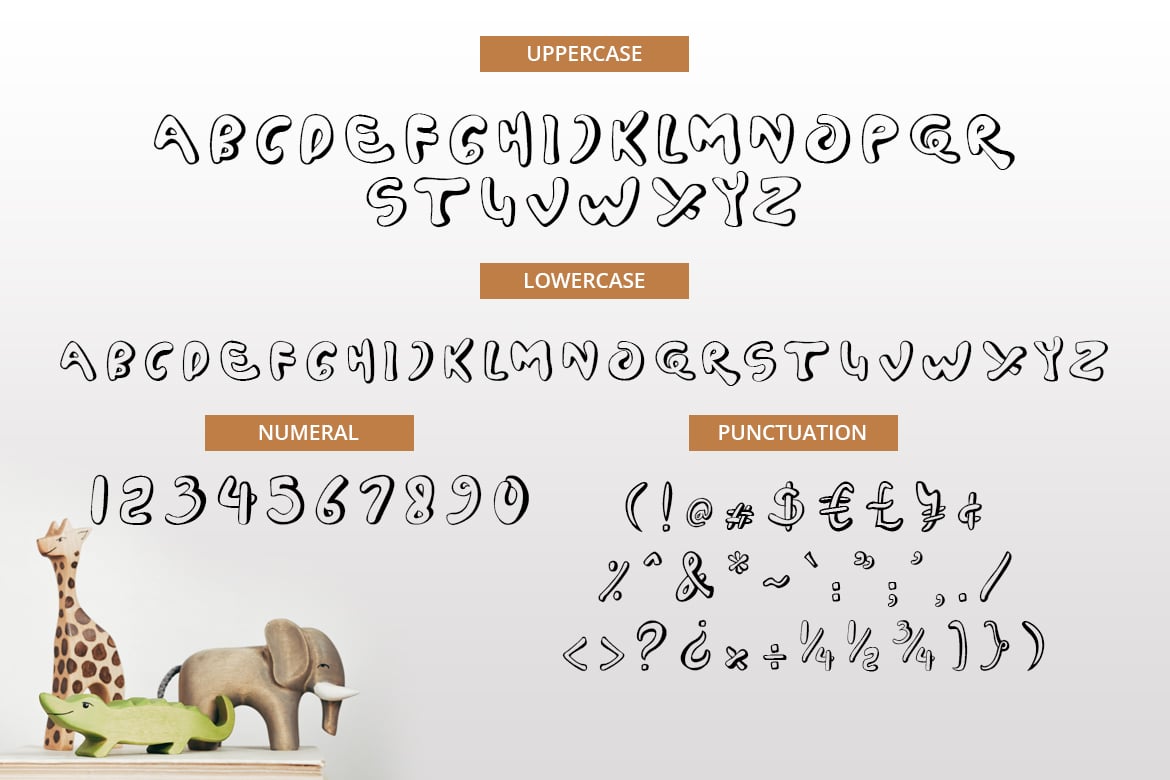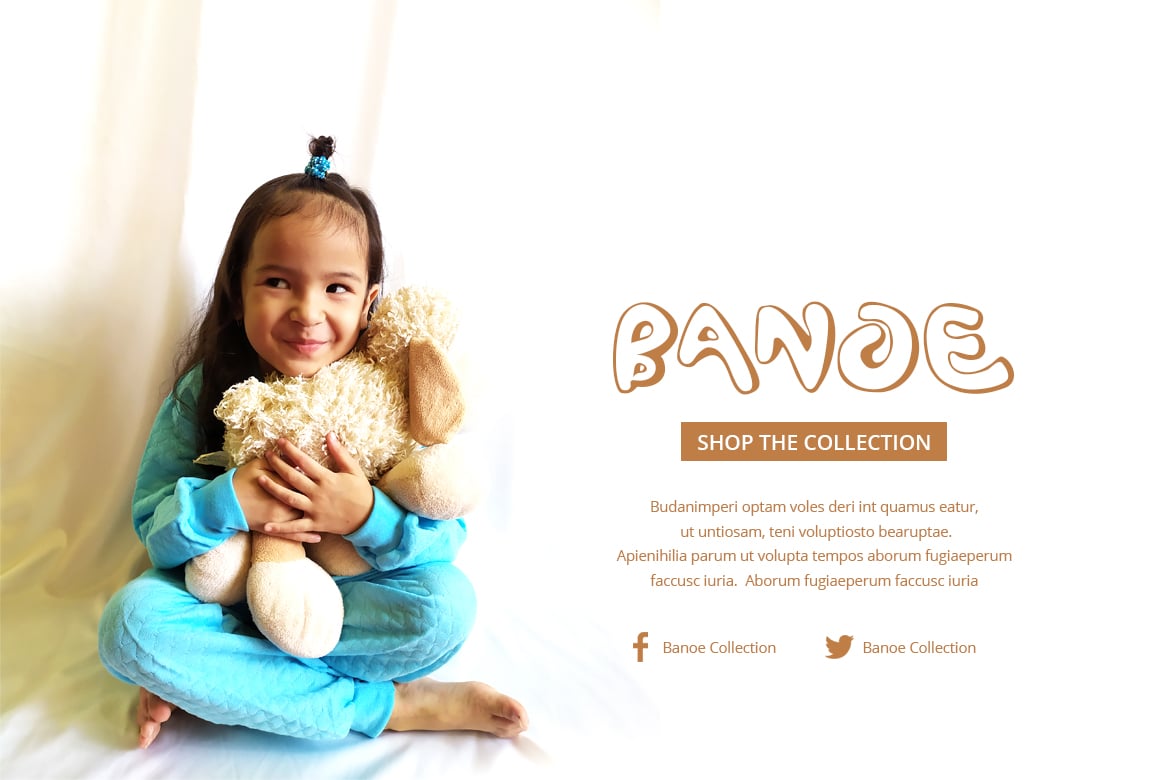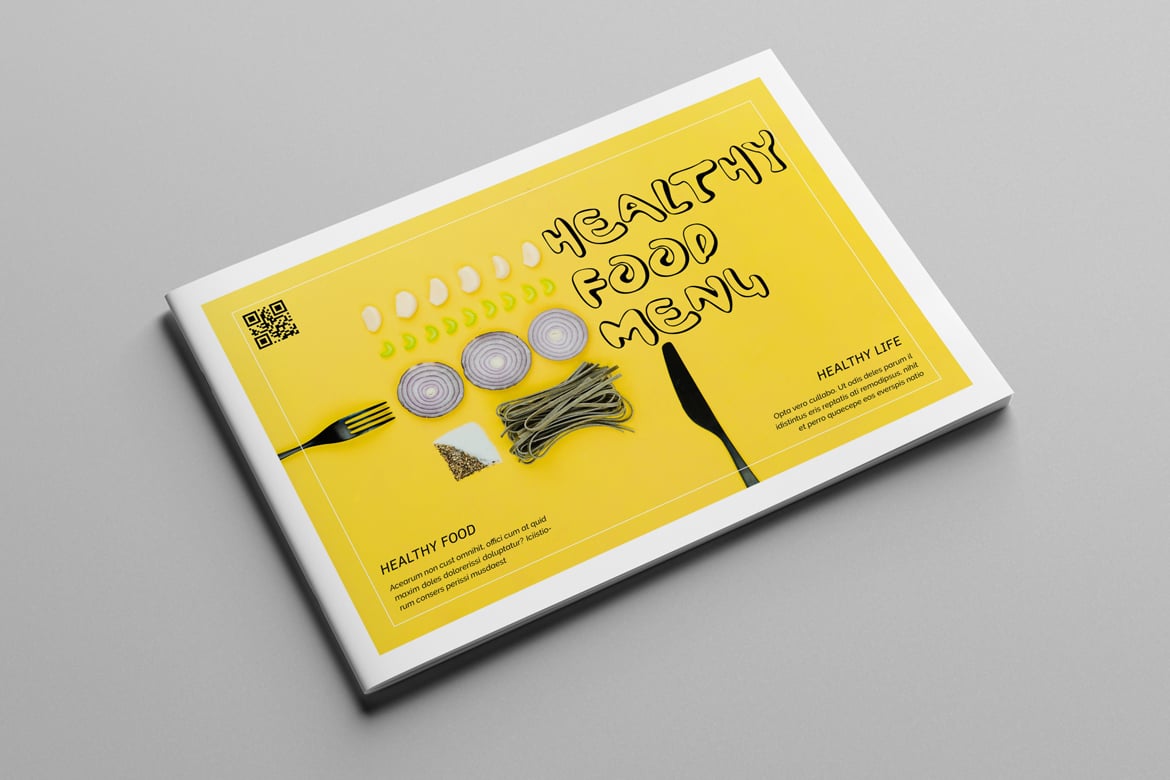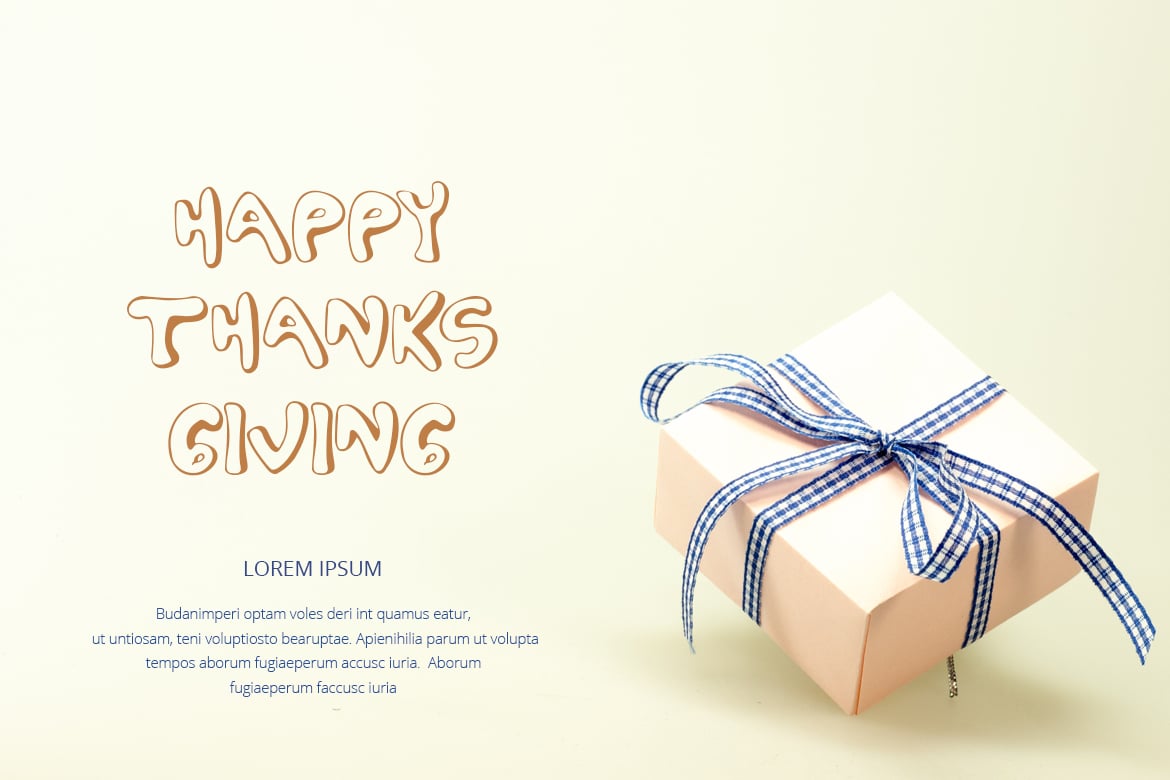
Marabo Display Font
Marabo
Marabo is a fun outline display font which based from hand drawing.
This font is perfect for making your set of invitations, Brand, blog posts, greeting cards, labels, photography, quotes, posters, wall art, etc.